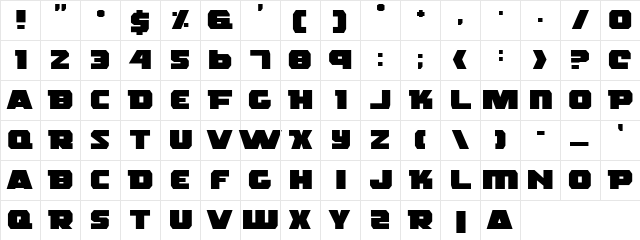
Rogue Hero Expanded Expanded
Design Context for Rogue Hero Expanded Typeface
Rogue Hero Expanded offers clean, dependable letterforms without strong stylistic allegiance, making it a practical choice for designers who need flexibility.
Pro Tip: Use Rogue Hero Expanded in both headline and body roles to test its range before committing to a single application.